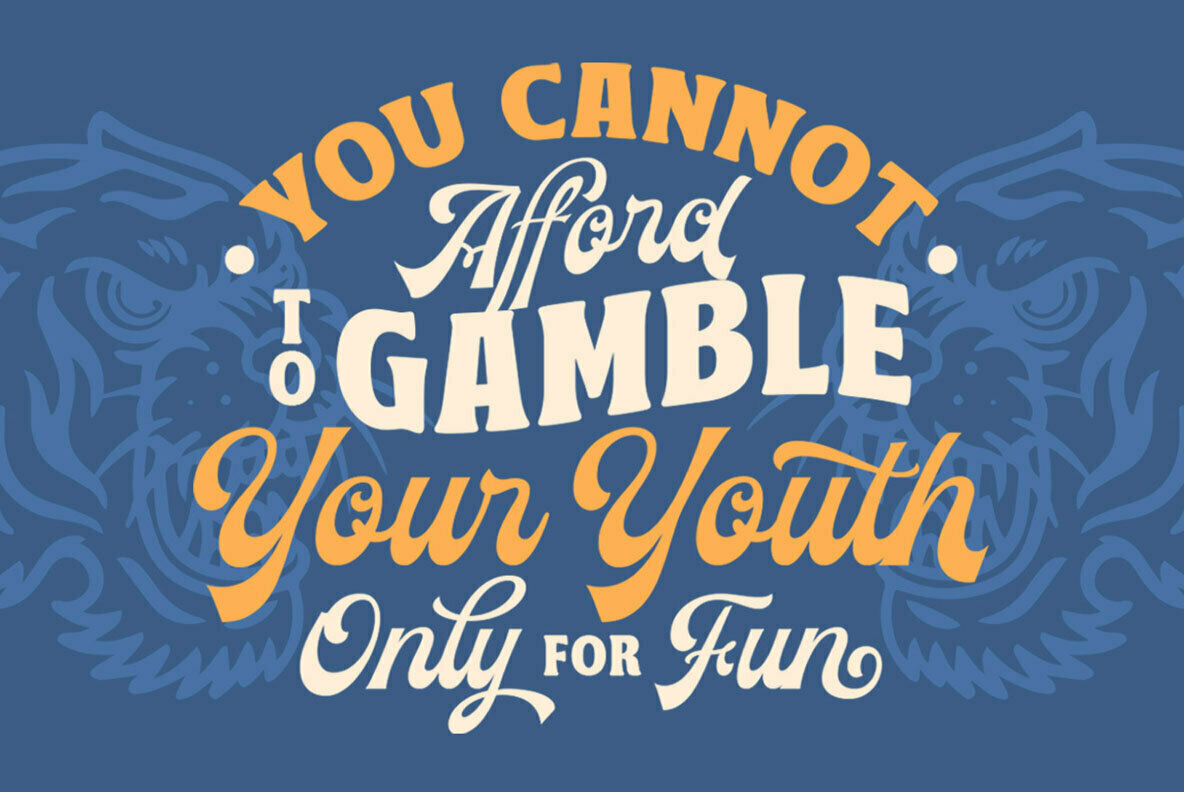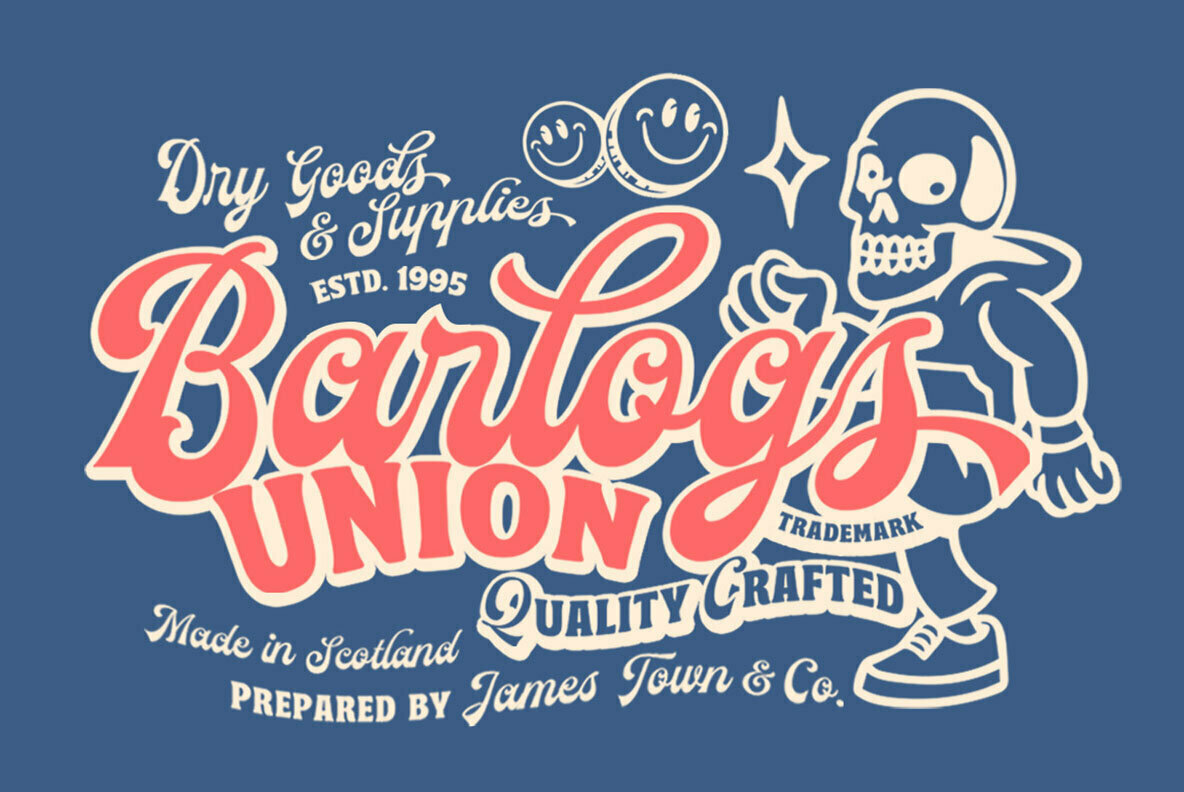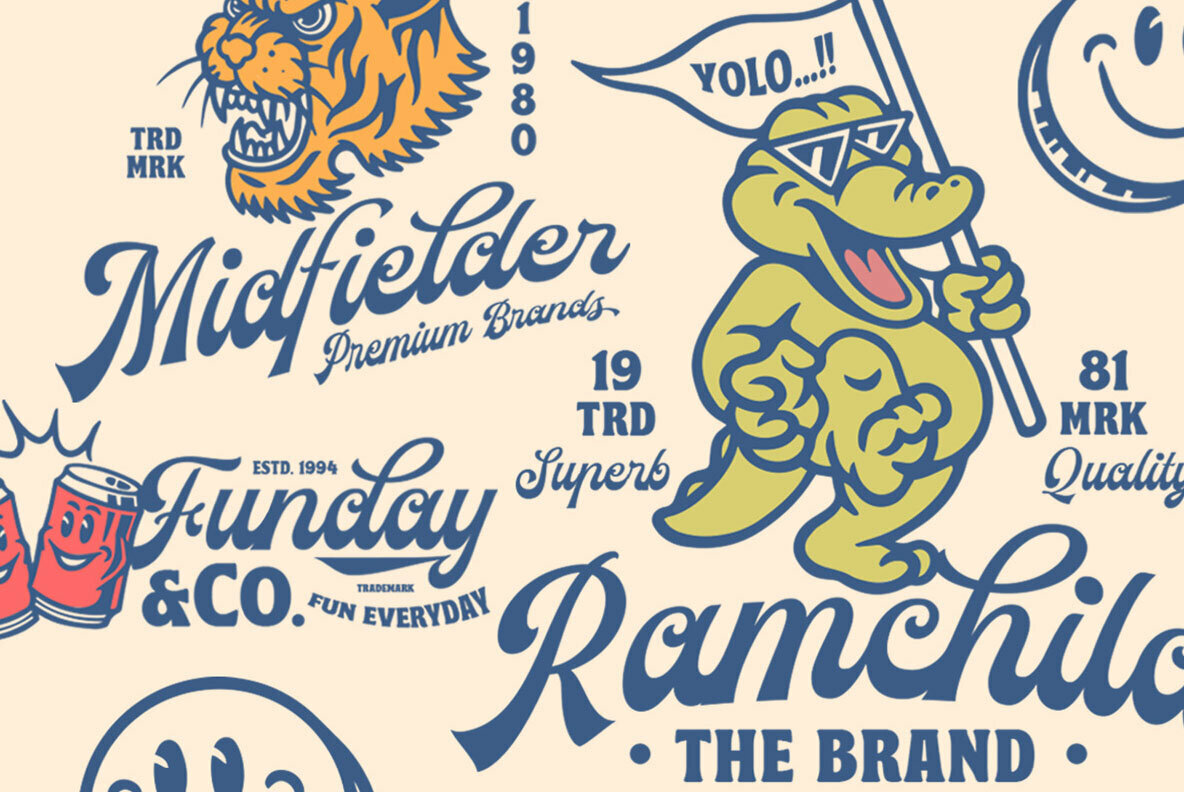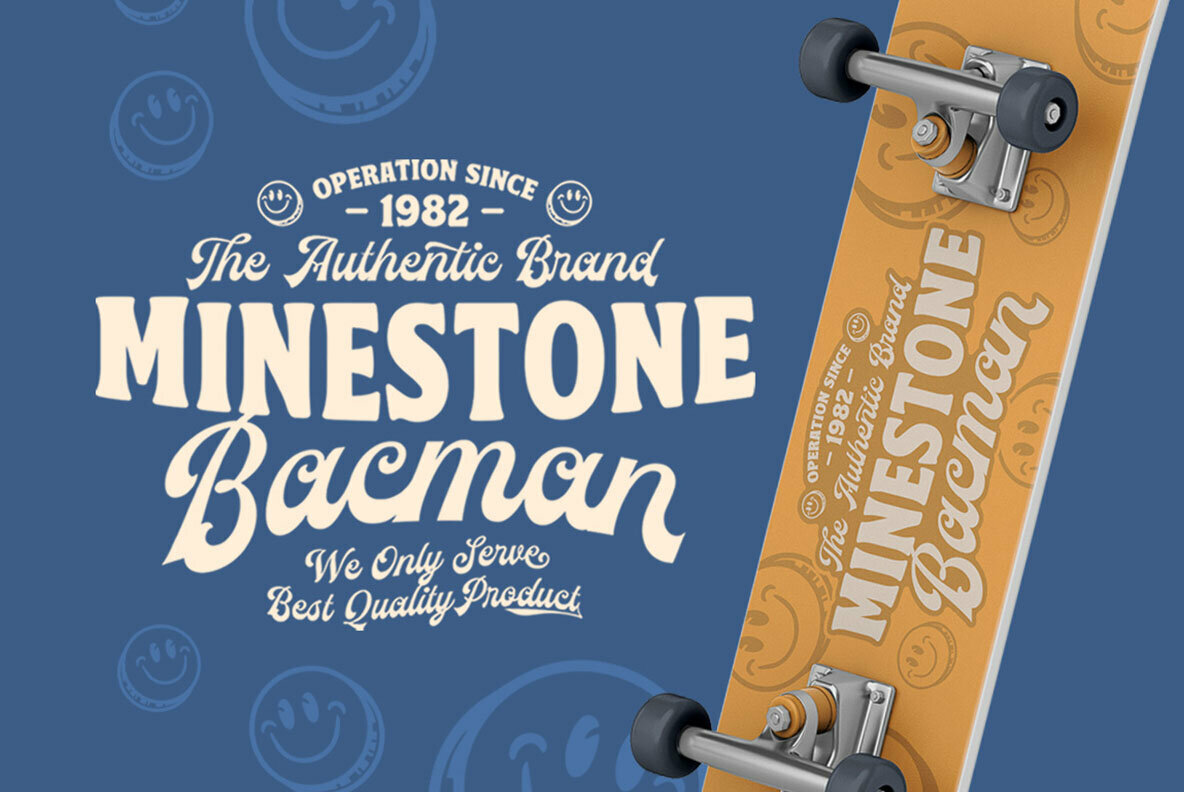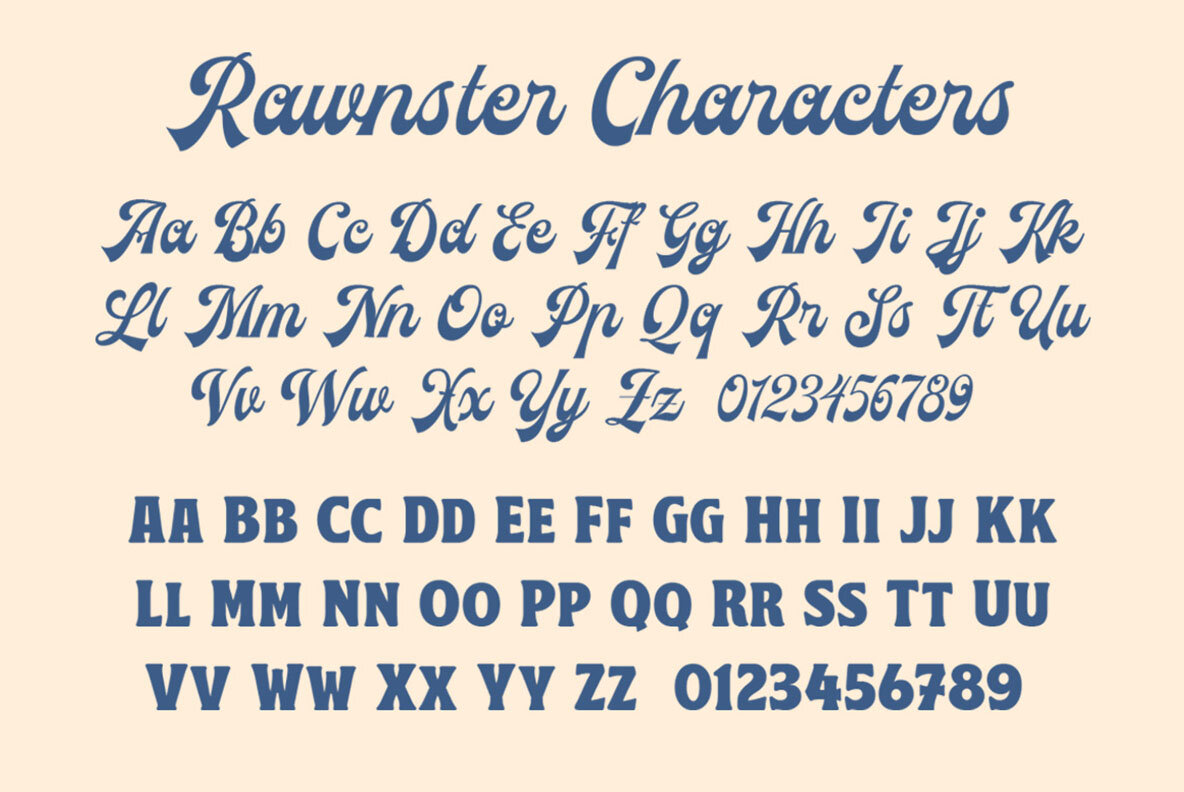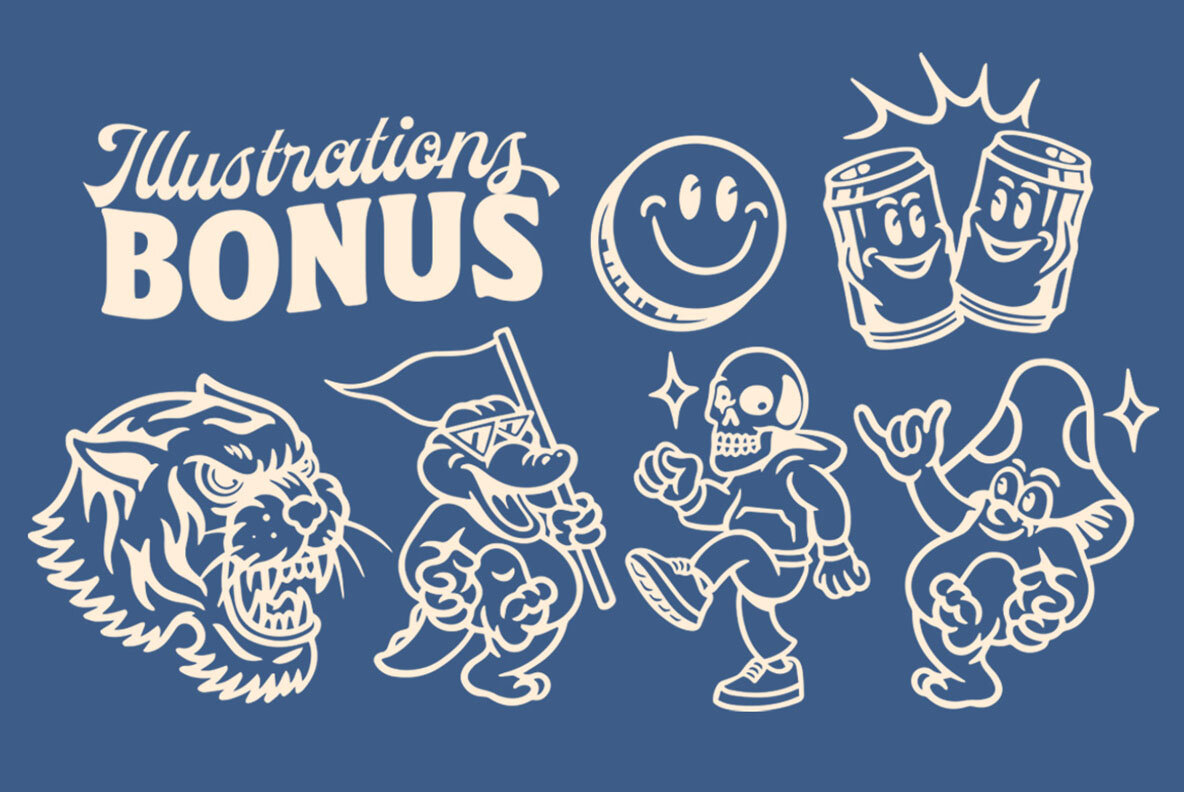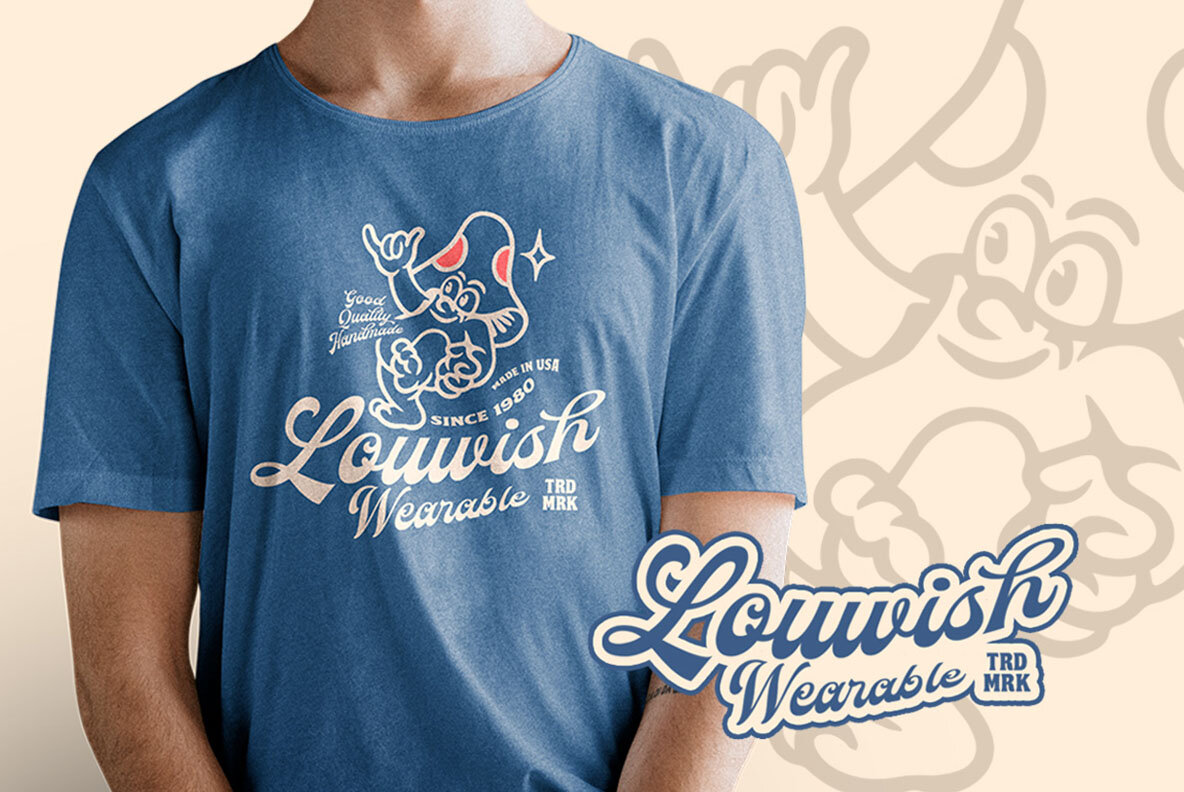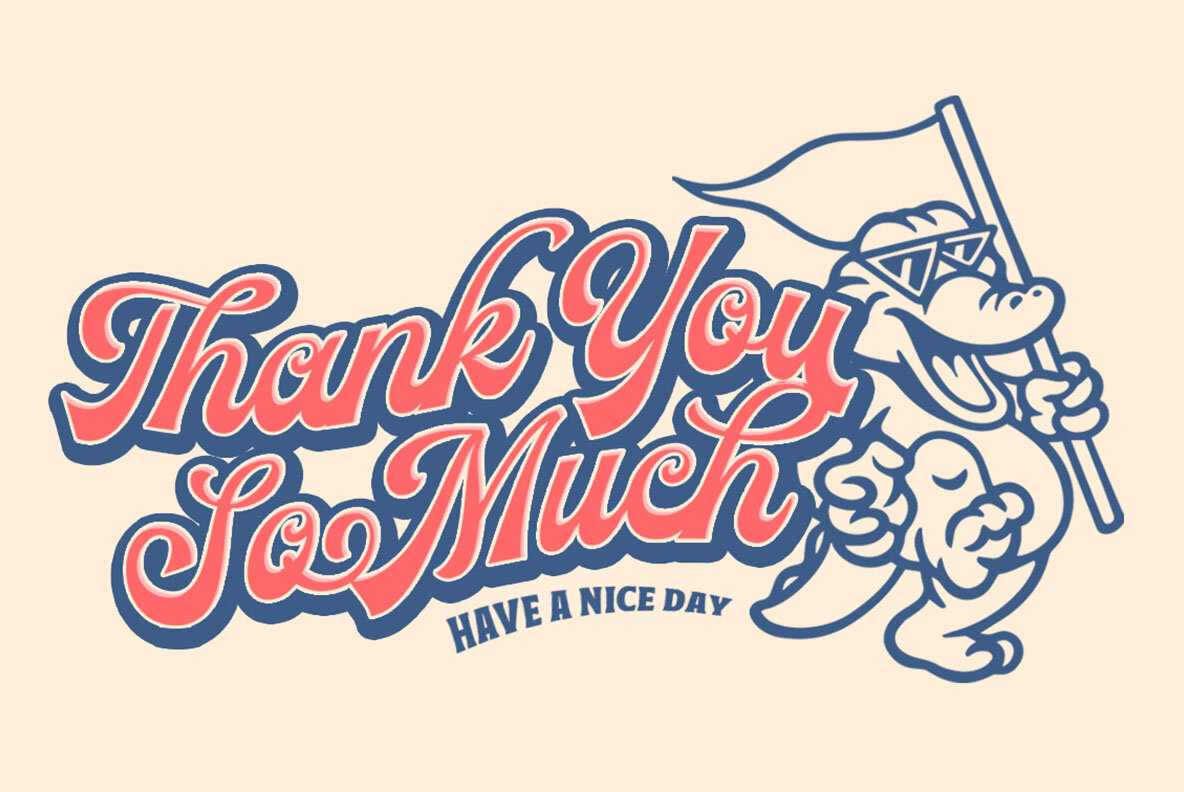
Rawnster Font Duo
Rawnster Script
Rawnster Font Duo and Bonus (2 fonts)
Infuse your designs with a nostalgic flair using the Rawnster Font Duo. This unique pairing seamlessly blends vintage aesthetics with modern functionality, making it equally suitable for logo creation, headlines, and formal designs. Whether you're crafting invitations, fashion labels, or packaging, this duo offers the flexibility to meet your design needs.Rawnster Font Duo: Vintage Charm with Versatile Uses